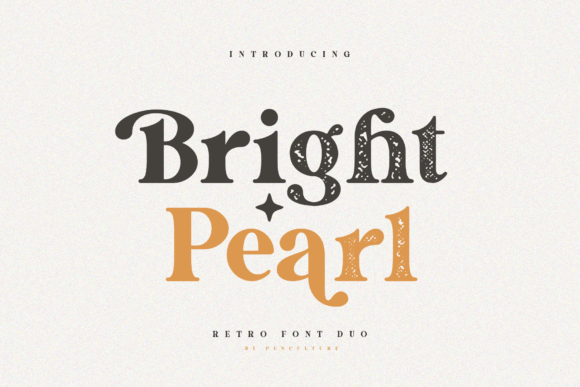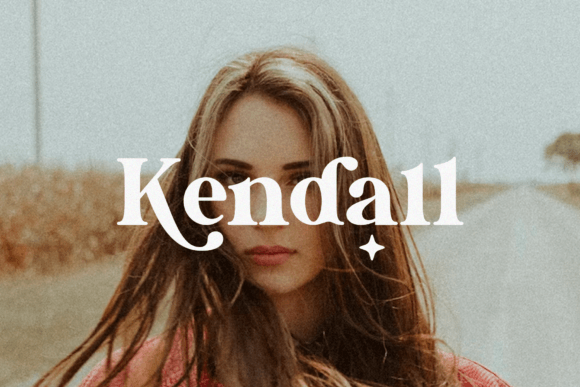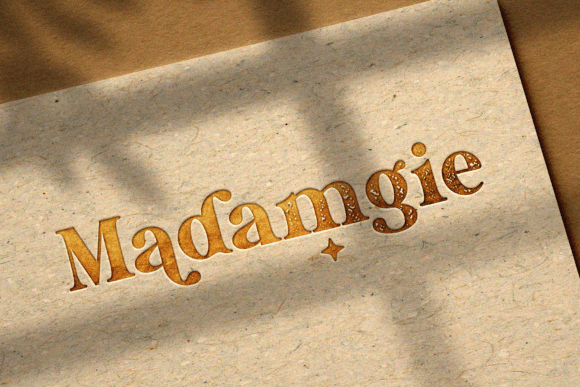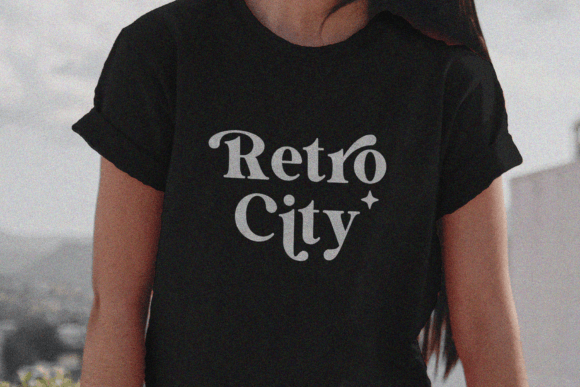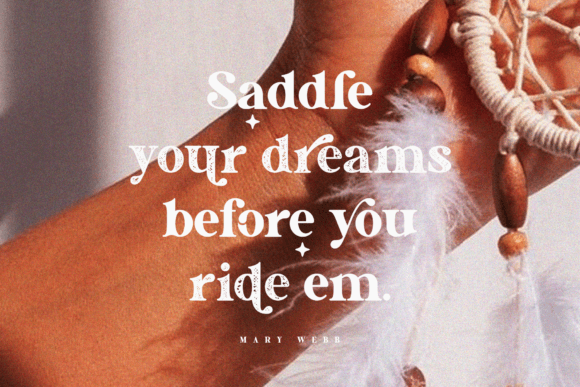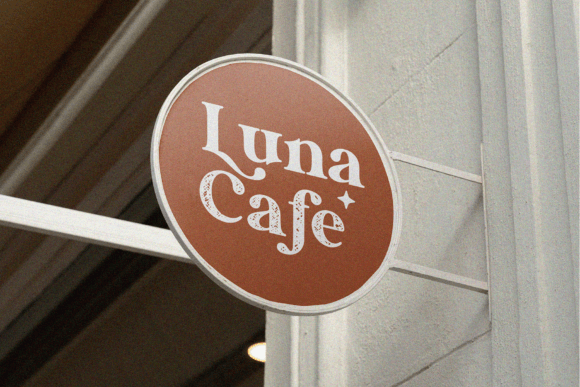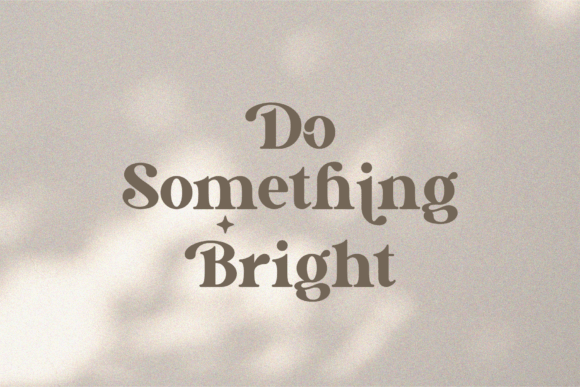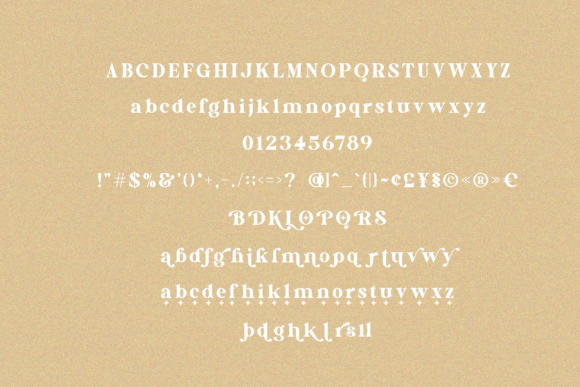
Bright Pearl Font
Bright Pearl is a retro serif font that come with 2 version, clean and rough. This font also has an outstanding stylistic alternate that you can use for any kind of design project such as branding, book cover, print on demand, cricut and many others.